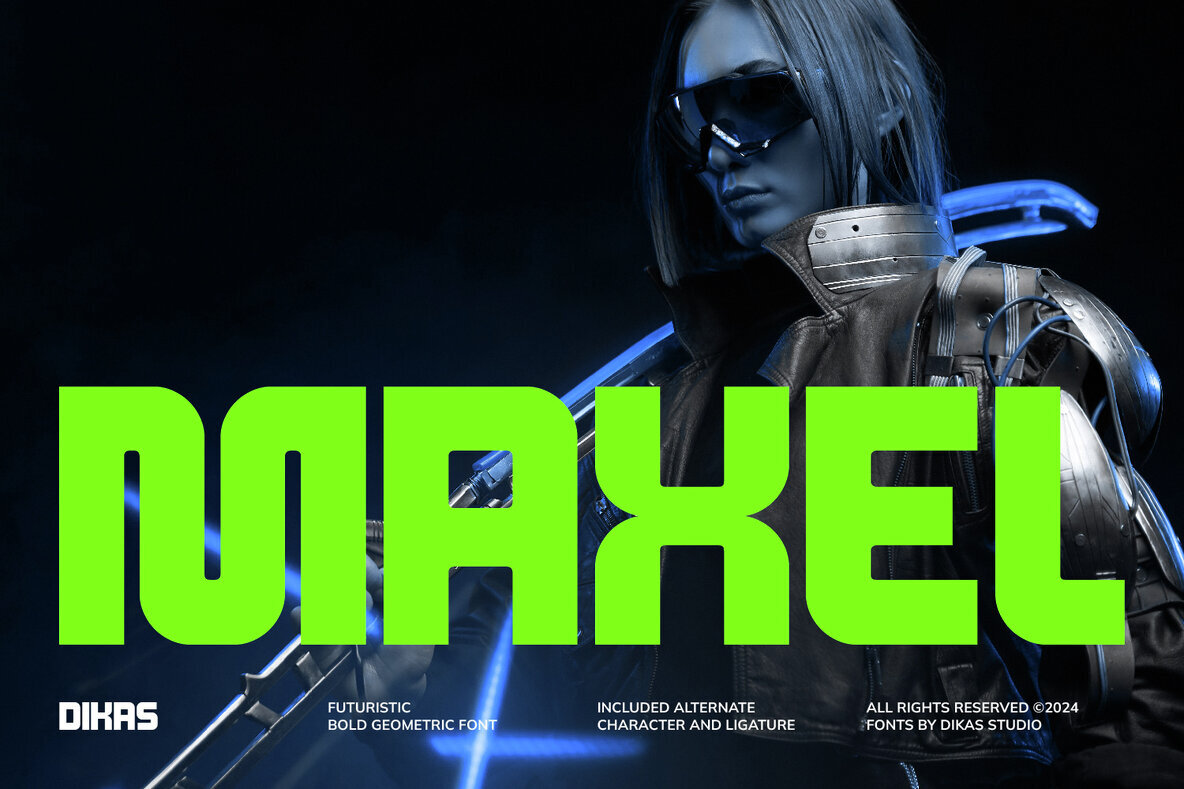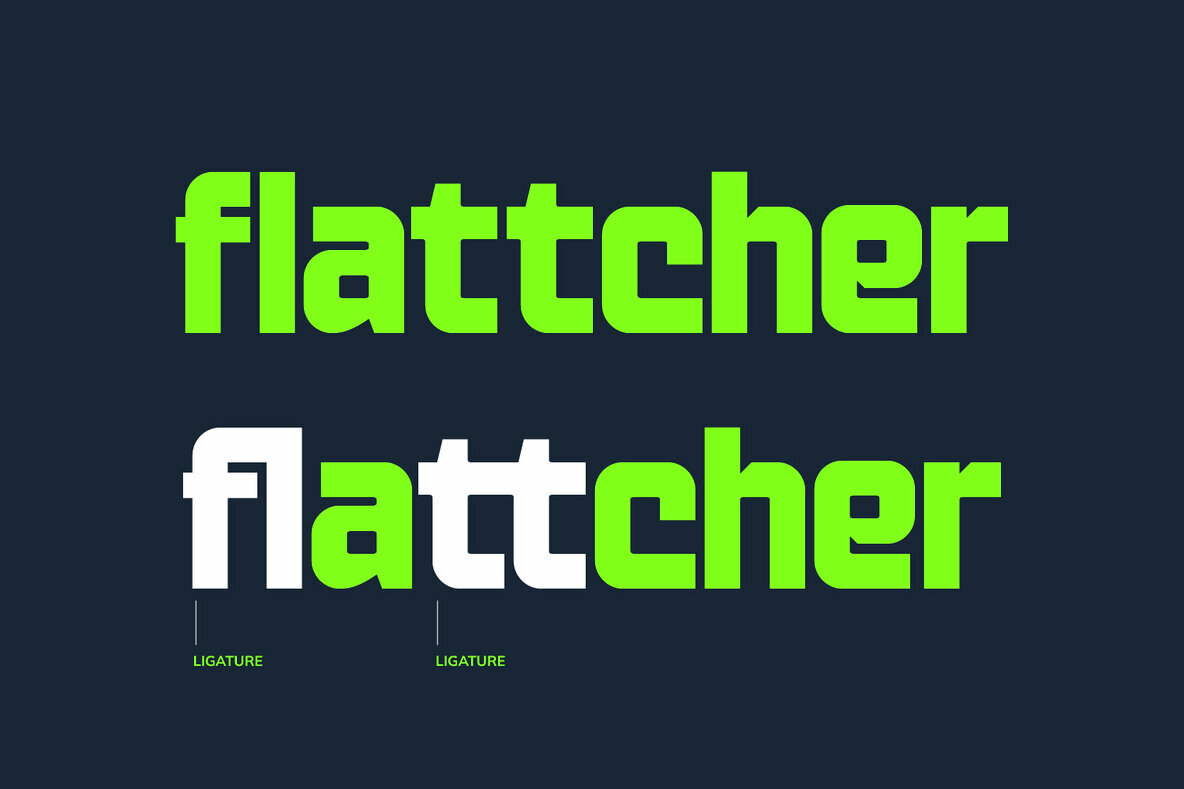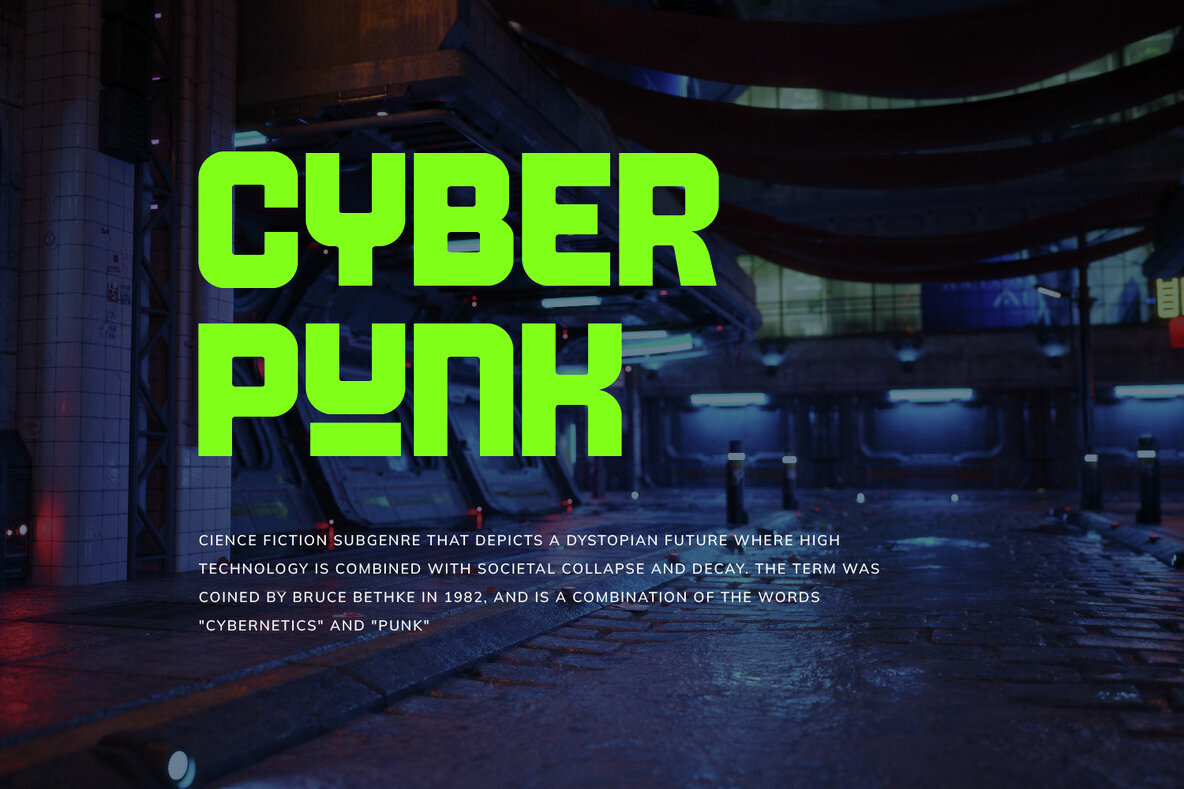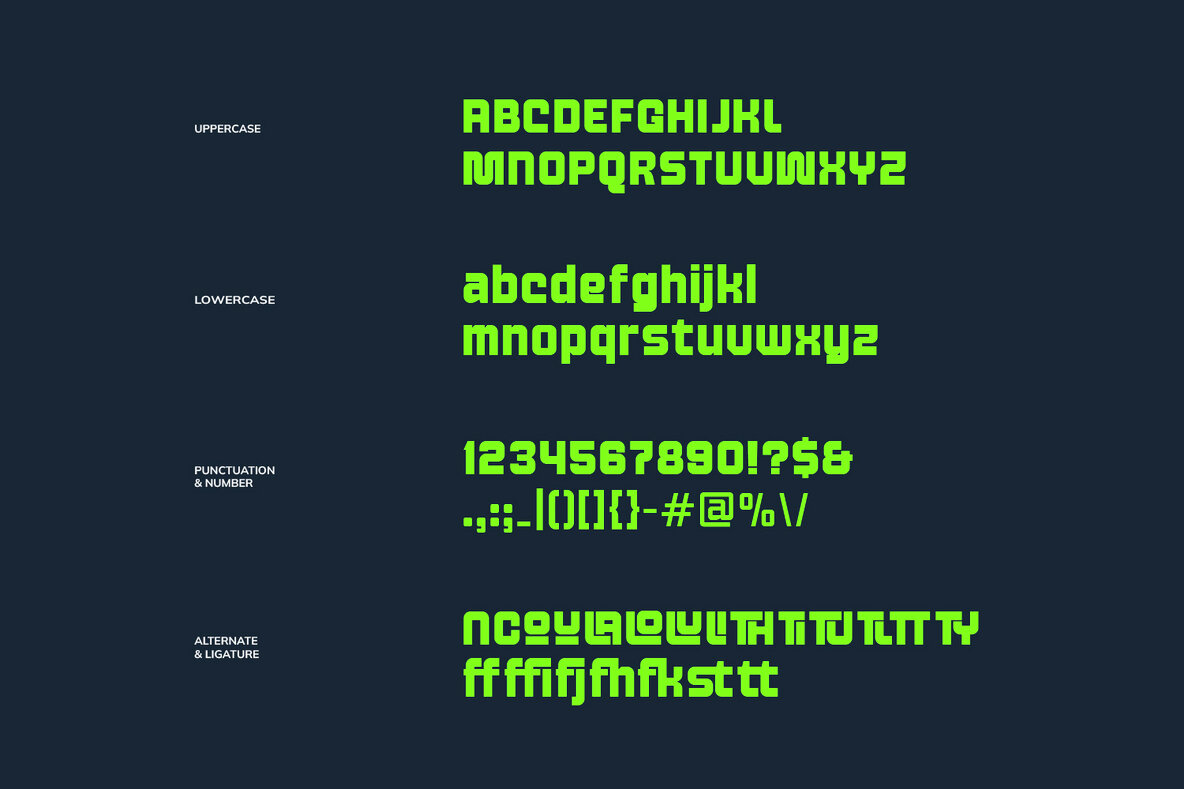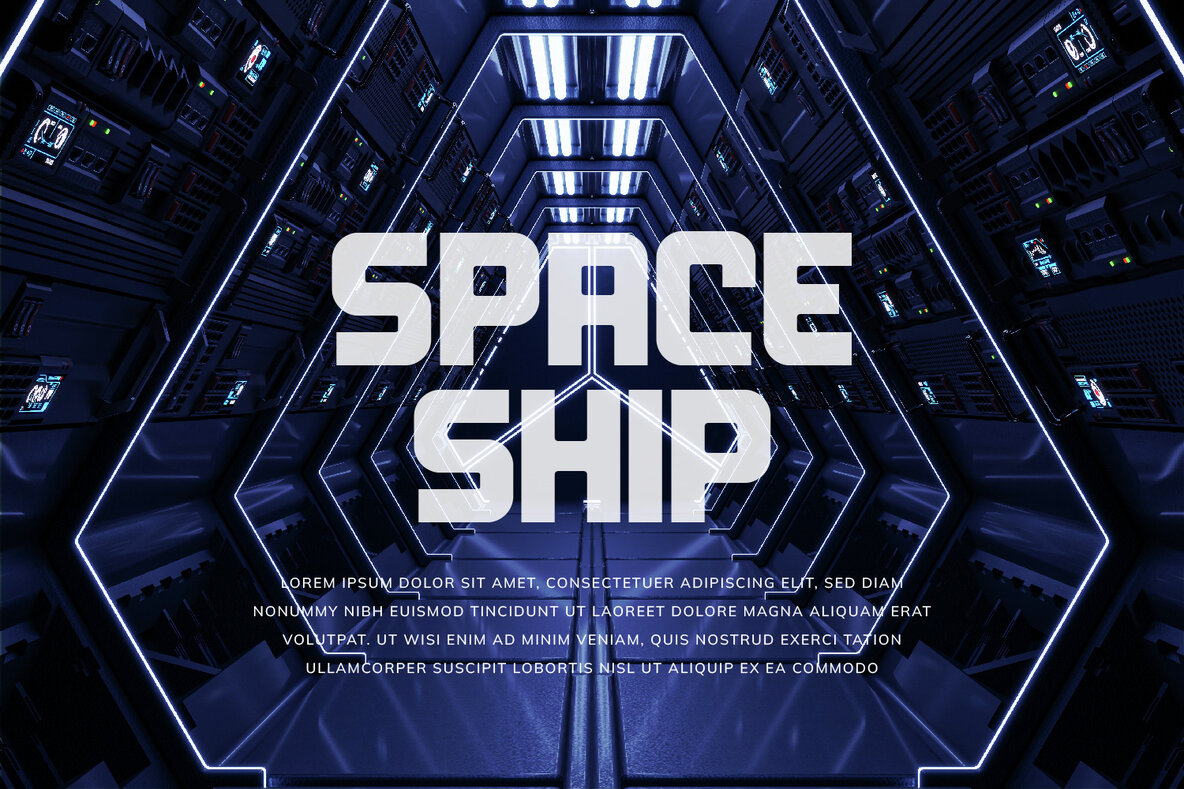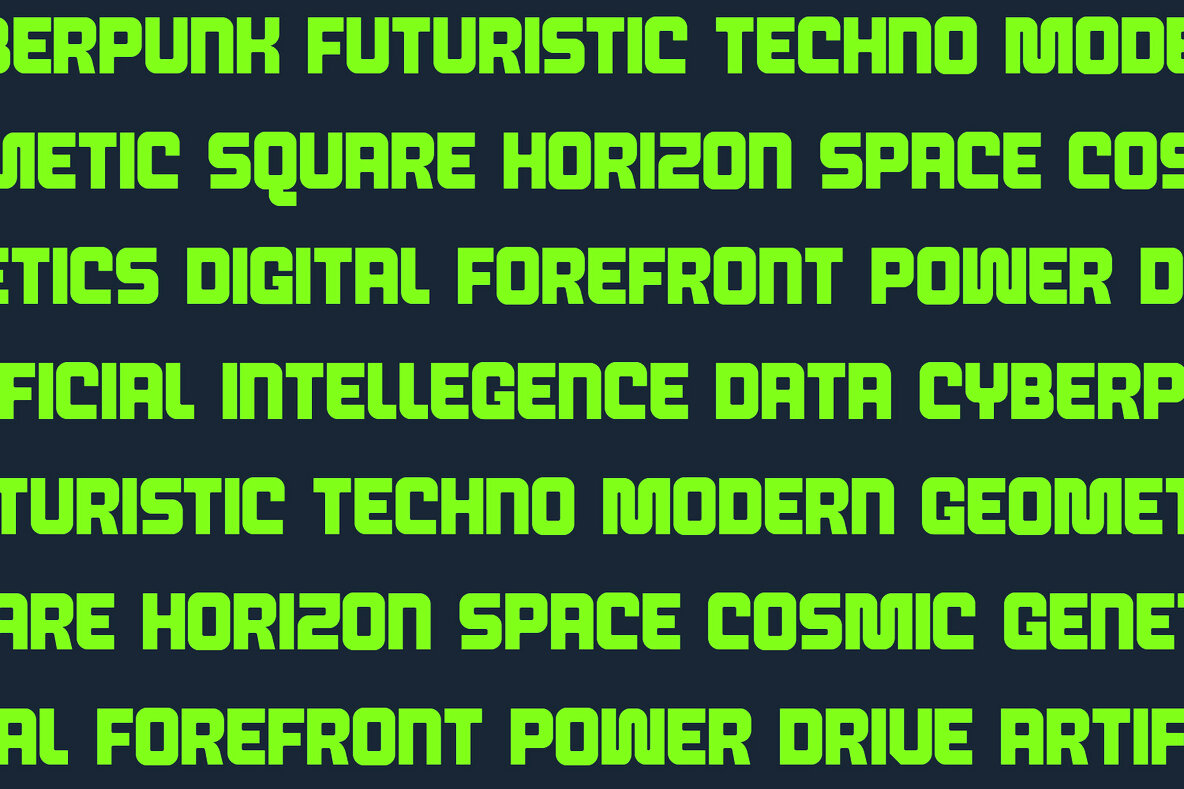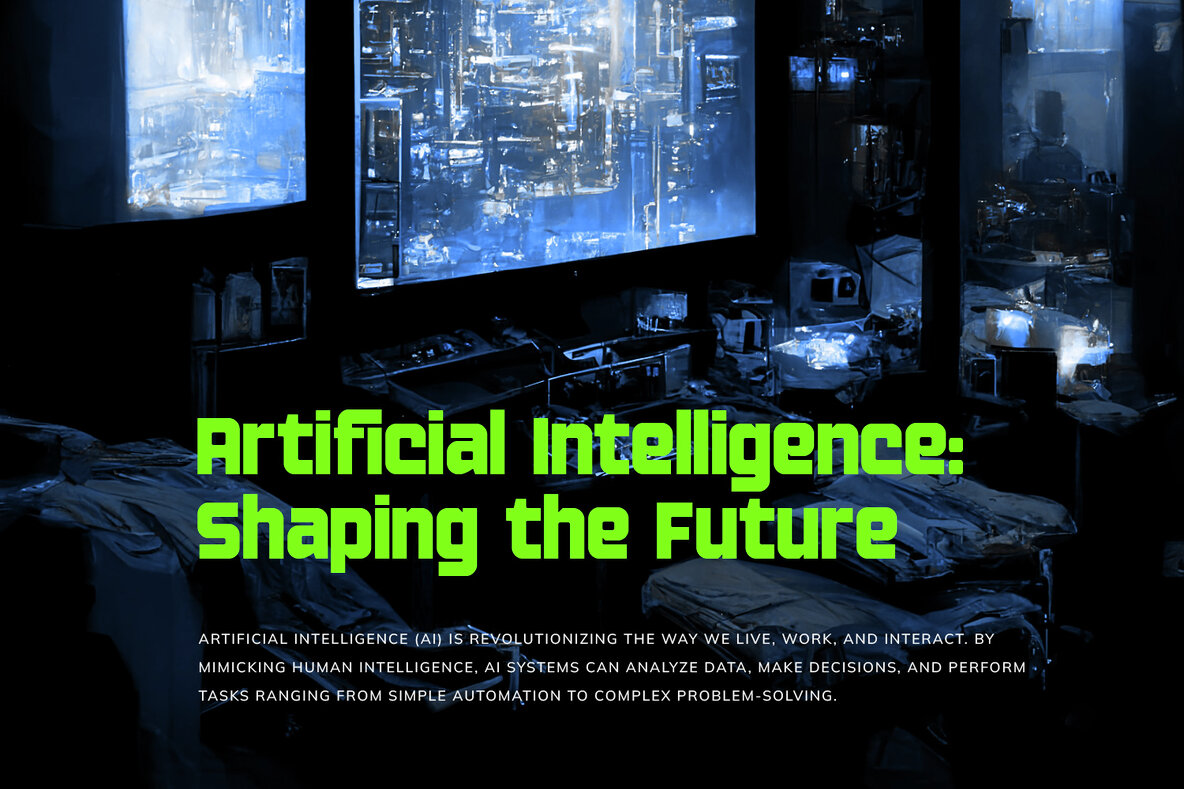
Maxel Font
Maxel Regular
Maxel embodies a bold sans-serif style that resonates with sleek, futuristic aesthetics. Perfect for projects rooted in space themes, techno vibes, and gaming, its powerful character provides a contemporary edge. Maxel's versatility shines in branding and logo creation, offering a robust appearance that sets designs apart. Its structure supports daring visual narratives and adapts seamlessly to diverse digital contexts.Maxel: Futuristic Sans-Serif for Modern Design